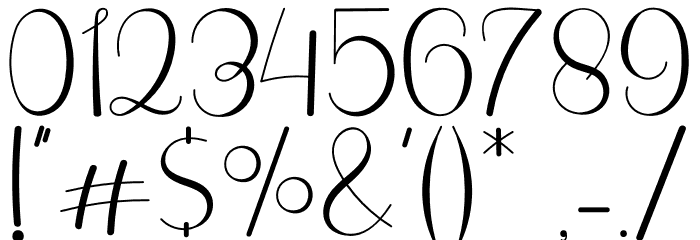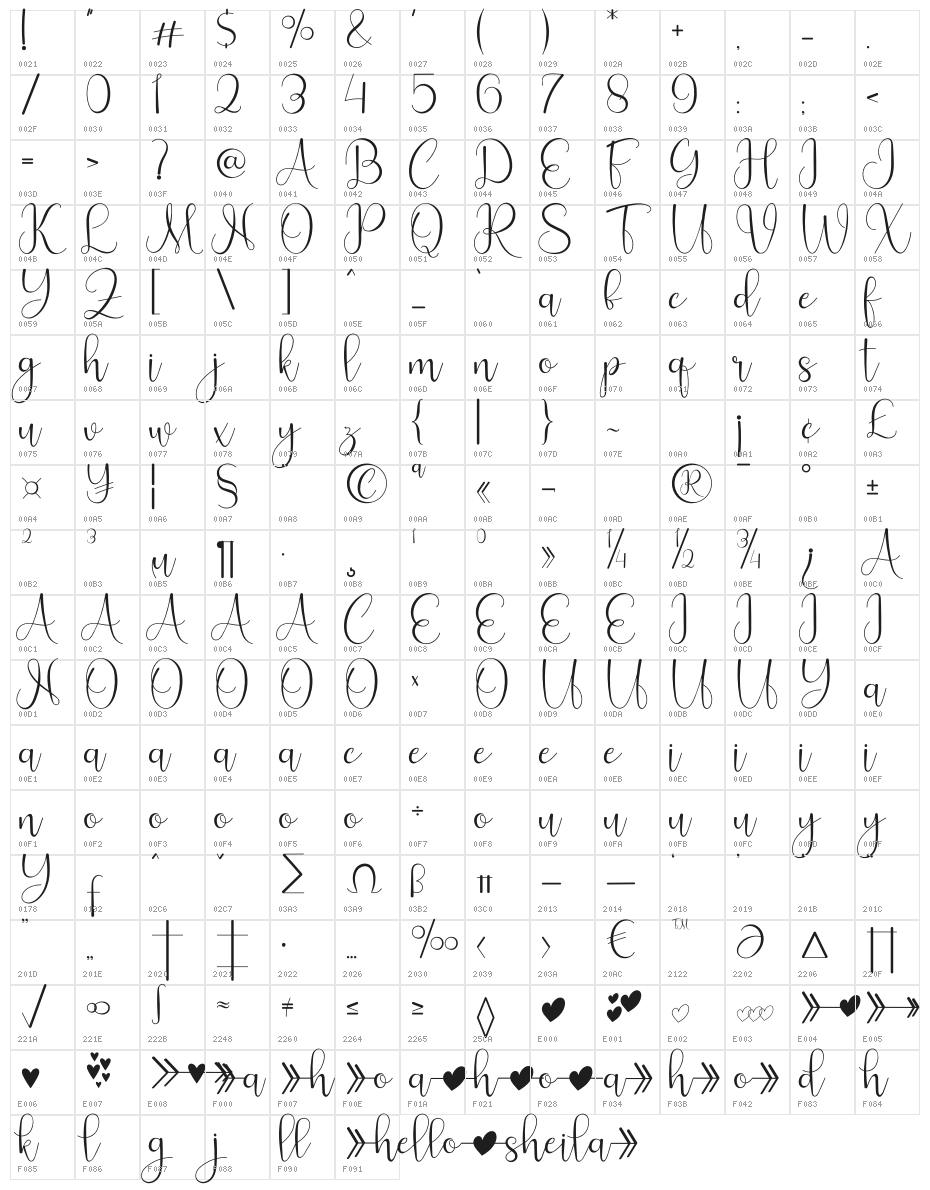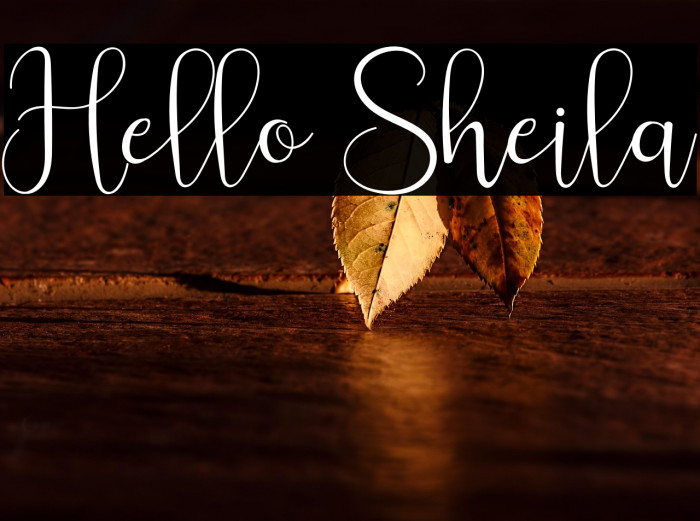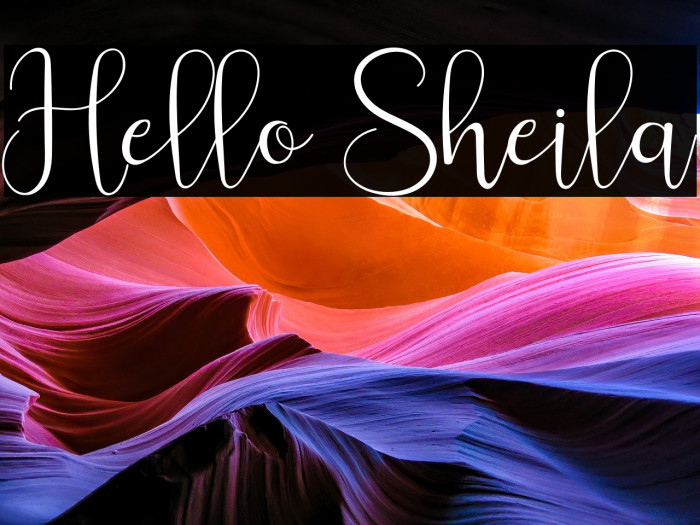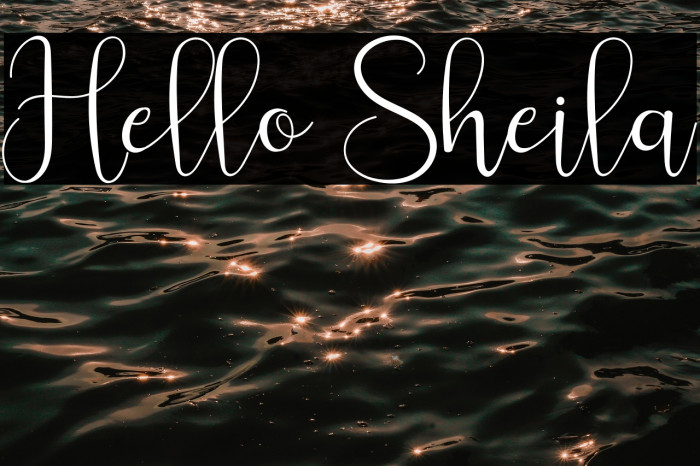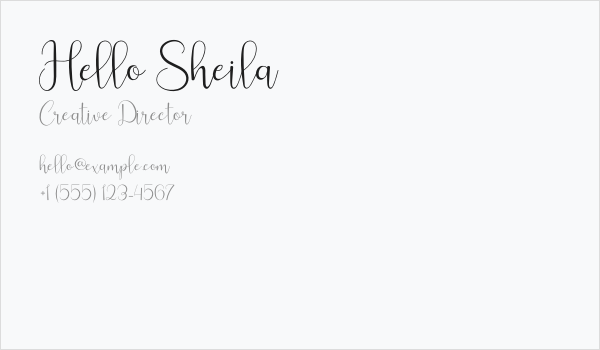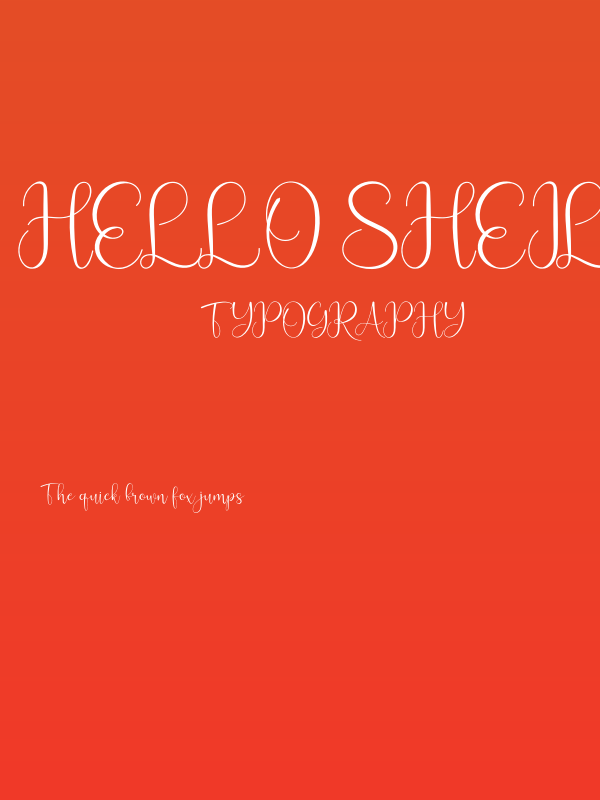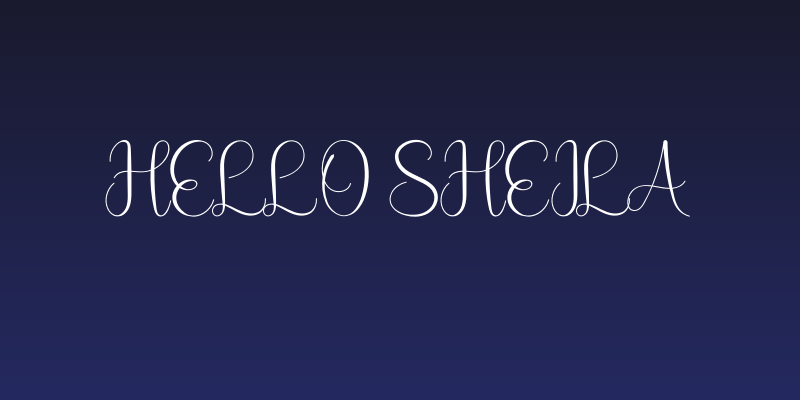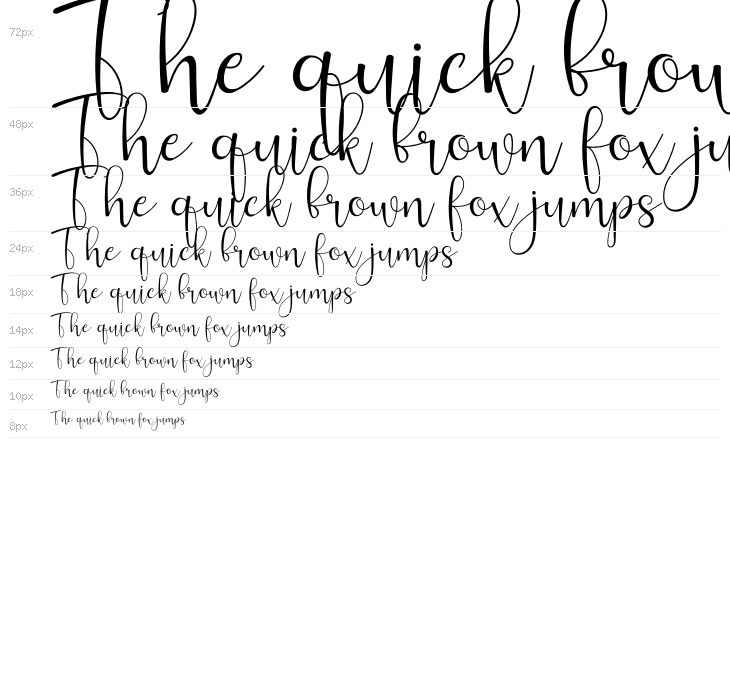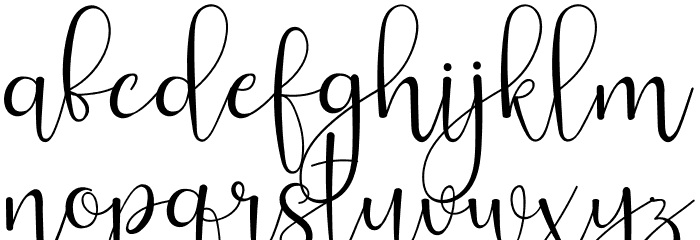
Hello Sheila Font
Hello Sheila Description
This font exudes elegance and sophistication with its flowing, cursive style. The uppercase letters are characterized by their graceful loops and swirls, giving them a sense of movement and fluidity. The lowercase letters maintain a consistent style, with some letters featuring unique flourishes that add to the overall charm. The numbers are clear and legible, while still incorporating the font's signature style. Special characters are thoughtfully designed to match the aesthetic, ensuring a cohesive look across all text. This font is perfect for projects that require a touch of elegance and personality, such as wedding invitations, branding, and decorative signage.
Overall StyleElegant
Use CaseHeadlines, Logos, Invitations
Proposed ProjectsIdeal for wedding invitations, branding, decorative signage, and elegant stationery.